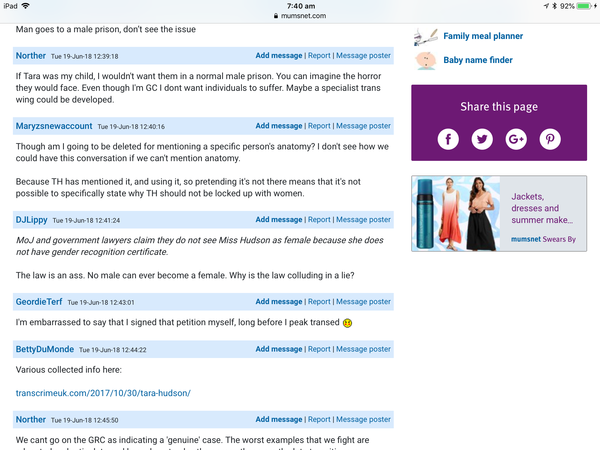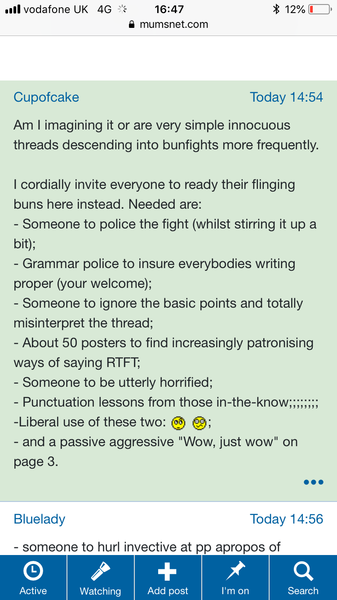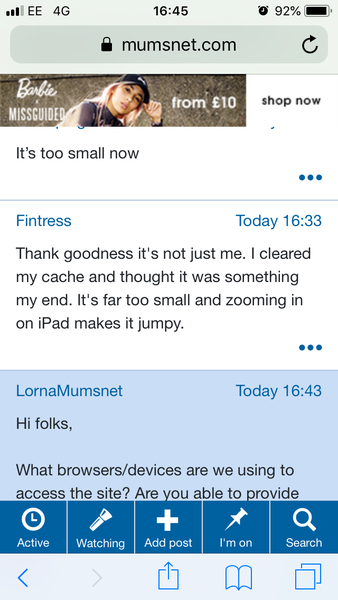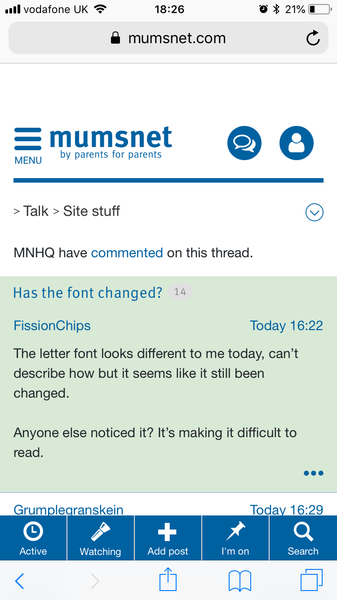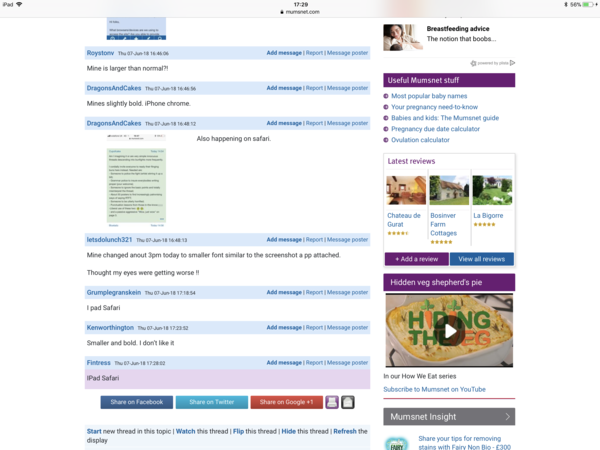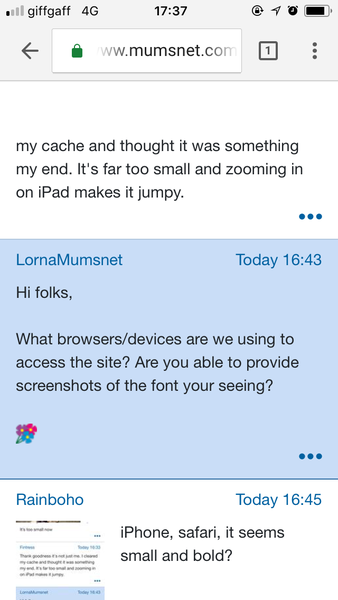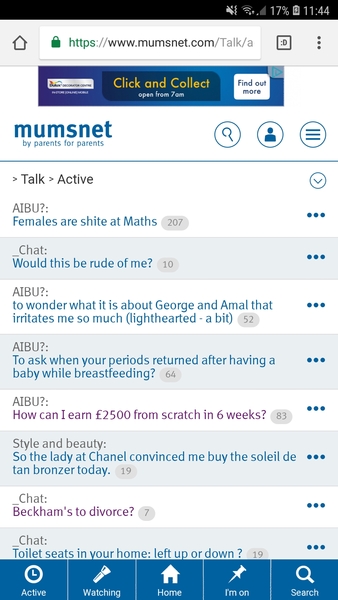
Has the font changed?
The letter font looks different to me today, can’t describe how but it seems like it still been changed.
Anyone else noticed it? It’s making it difficult to read.
It’s too small now
Thank goodness it's not just me. I cleared my cache and thought it was something my end. It's far too small and zooming in on iPad makes it jumpy.
What browsers/devices are we using to access the site? Are you able to provide screenshots of the font you're seeing?
iPhone, safari, it seems small and bold?
Mine is larger than normal?!
Mines slightly bold. iPhone chrome.
Also happening on safari.
Mine changed anout 3pm today to smaller font similar to the screenshot a pp attached.
Thought my eyes were getting worse !!
I pad Safari
Smaller and bold. I don’t like it
IPad Safari
Screenshot - iPad using Safari
Iphone, using chrome.
Glad it’s not my eyes going wonky!
My text is smaller and bold also the mumsnet font in the banner thing at the top looks different.
everything looks different this evening! Plus the site seems really slow tonight.
My font isn't different, but the pages seem to be zoomed in, everything is huge!
iPad safari. Every time I click on a thread it zooms in and I have to pinch it back to get it to normal size. V annoying. Only started happening tonight.
The zooming is getting very annoying 😕
On the active page the font seems sharper, less even and thinner in places but when I click on an actual thread it's fine. Phone, mobile site via chrome.
Screenshot here.
Mines the same. All the font looks bolder slightly. It’s making my eyes hurt! Grin
Something is different but I can’t articulate what.
Mine too, happened after my iPhone updated yesterday
Mine has gone back to normal, only just realised it 😳. Thank you @mumsnet